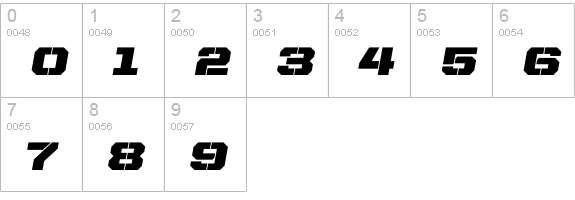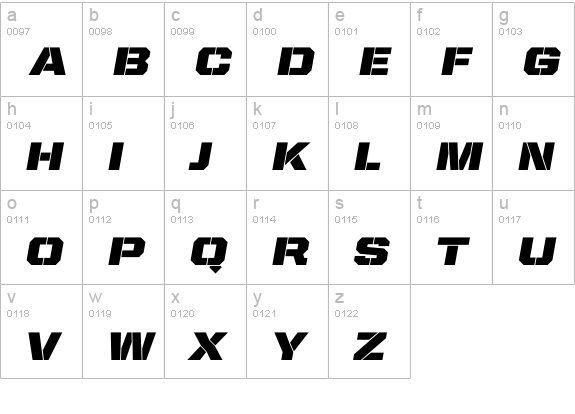
United Italic SemiExt Stencil Font Details
United Italic SemiExt Stencil is a distinctive, italic variant in the United typeface family \xE2\x80\x94 well suited to design and typography projects.
United Italic SemiExt Stencil font is a visually striking typeface that exudes strength and modernity. Its unique stencil design gives it a contemporary edge, making it perfect for a variety of design projects. The bold and sleek letterforms of this font make a powerful statement, whether it's used for headlines, logos, or branding. With its semi-extended proportions, United Italic SemiExt Stencil font offers a sense of stability and balance. It is ideal for creating eye-catching displays and titles that demand attention. The clean and crisp lines of this font ensure legibility, even at smaller sizes, making it versatile for both print and digital applications. One of the most appealing aspects of United Italic SemiExt Stencil font is that it is freely available to download at FontsMarket.com. This means that designers and creatives can easily access and use this font for their projects without any cost. The inclusion of 'free' makes it an even more attractive choice for those looking for high-quality typography that doesn't break the budget. Whether you're a professional designer or a hobbyist, United Italic SemiExt Stencil font is a valuable addition to your font library. Its bold and modern aesthetic, combined with its availability as a free download, makes it a must-have for any design project. So why wait? Visit FontsMarket.com today and discover the power of United Italic SemiExt Stencil font for your next creative endeavor.